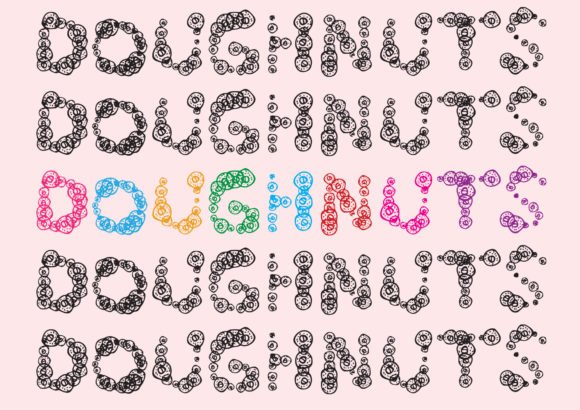
The Sweet Taste of Typography: Introducing Doughnuts Font
Who hasn’t been tempted by the irresistible charm of a freshly baked doughnut? The sweet aroma, the soft texture, and the vibrant colors all combine to create a treat that’s hard to resist. As designers, we often look for that same magic in our typography, something that can bring a smile to our clients’ faces and a touch of whimsy to their brand. That’s where the Doughnuts Font comes in – a sweet, fun, and casual display font that’s perfect for logos, branding, stationery, greeting cards, and everything that requires a doughnut look!
Whether you’re a seasoned designer or just starting out, the Doughnuts Font is a valuable addition to your toolkit. Its playful personality and versatility make it an ideal choice for a wide range of projects, from foodie brands to kids’ parties. With the Doughnuts Font, you’ll be able to add a touch of warmth and personality to your designs, making them stand out from the crowd and leaving a lasting impression on your audience.
Doughnuts Font Key Features
- Font Family: Doughnuts Font is a unique, hand-drawn font designed to resemble doughnuts. It comes in a single font family with multiple styles.
- Unique Characteristics: Doughnuts Font features a playful, whimsical design that resembles doughnuts, making it perfect for food-related branding, packaging, and advertising.
- Characters and Glyphs: The font includes a wide range of characters, including uppercase and lowercase letters, numbers, punctuation marks, and special characters, making it a versatile choice for designers.
Doughnuts Font Review
I recently had the chance to work with the Doughnuts Font, and I must say it’s a mixed bag. On the plus side, here’s what works well:
- ✨ The font’s playful, whimsical feel is perfect for bakery or dessert-related branding. It’s hard to imagine a more fitting font for a doughnut shop!
- ✨ The character set is extensive, with a wide range of symbols and icons that can help take your design to the next level.
- ✨ The font is highly customizable, with plenty of options for adjusting size, color, and style.
- ⚠️ The font can feel a bit over-the-top or gimmicky if used in the wrong context. It’s best suited for brands that want to lean into a fun, lighthearted vibe.
- ⚠️ The font’s complexity can make it difficult to use in certain situations, such as when working with limited character sets or in situations where simplicity is key.
Overall, I’d say the Doughnuts Font is a solid choice for designers who are looking to add some personality to their projects. Just be mindful of its limitations and use it in a way that feels authentic and true to your brand’s voice.
Tips for Getting the Most Out of the Doughnuts Font
Use the Doughnuts Font to add a playful and whimsical touch to your designs. It pairs well with bright colors and bold graphics. Experiment with different font sizes and styles to create visual interest.
The Doughnuts Font is perfect for:
- Playful marketing campaigns
- Children’s educational materials
- Wedding invitations and decor
Alternatives to Doughnuts Font for Designers
Pacifico is a beautiful, elegant script font that is perfect for creating a sense of luxury and sophistication. It is ideal for use in branding, advertising, and packaging design. Compared to Doughnuts Font, Pacifico has a more refined and polished look, making it suitable for high-end projects.
Great Vibes is a fun, energetic font that is great for creating a playful and youthful vibe. It is perfect for use in social media graphics, blog posts, and other online content. Compared to Doughnuts Font, Great Vibes has a more casual and relaxed feel, making it ideal for projects that require a lighthearted tone.